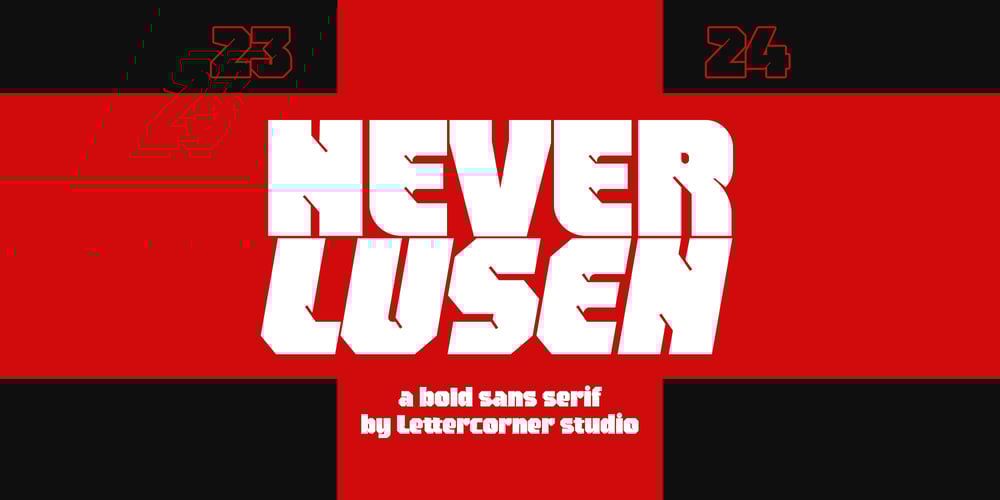
Neverlusen Font Family was designed by Muhammad Afif Ersya and published by Mevstory Studio. Neverlusen contains 4 styles and family package options. Neverlusen is a Display font published and design by Lettercorner Studio Inspired by the big board sign in every corner of the town and shadows me every time I close my eyes when I tried to sleep. well Neverlusen is a strong and bold typeface it has multilingual language, it useful for your a cool and coolest project up next. Try this font on any surface it will looks Stunning!. happy creating. hope you like it!Thank you and Regards,LCS